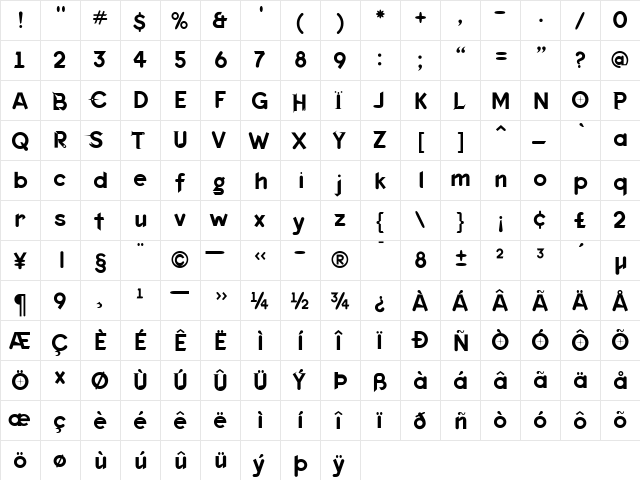
Keedy Regular
| Foundry | \ Emigre Graphics |
Design Context for Keedy Typeface
Keedy offers clean, dependable letterforms without strong stylistic allegiance, making it a practical choice for designers who need flexibility.